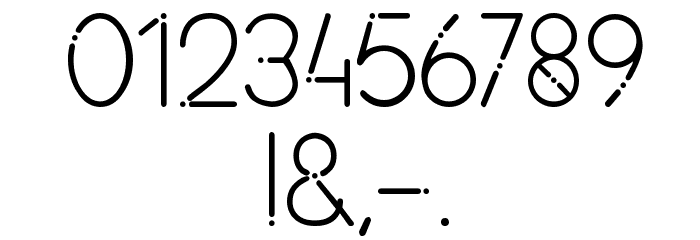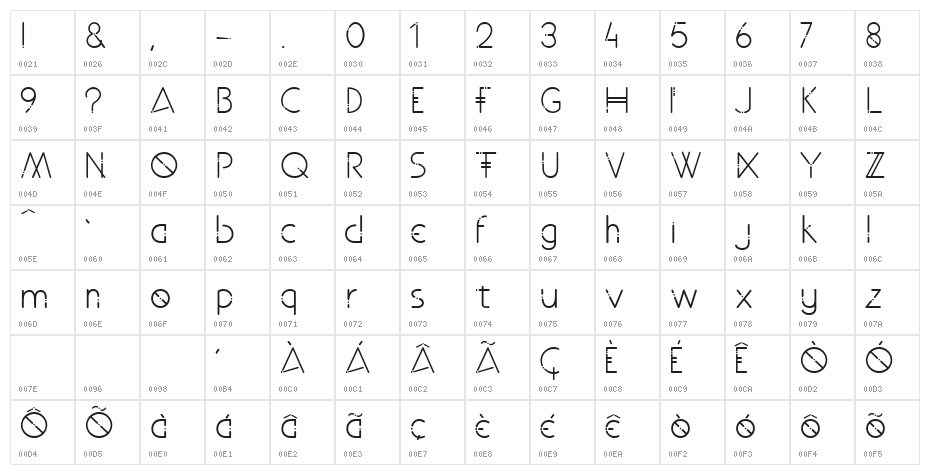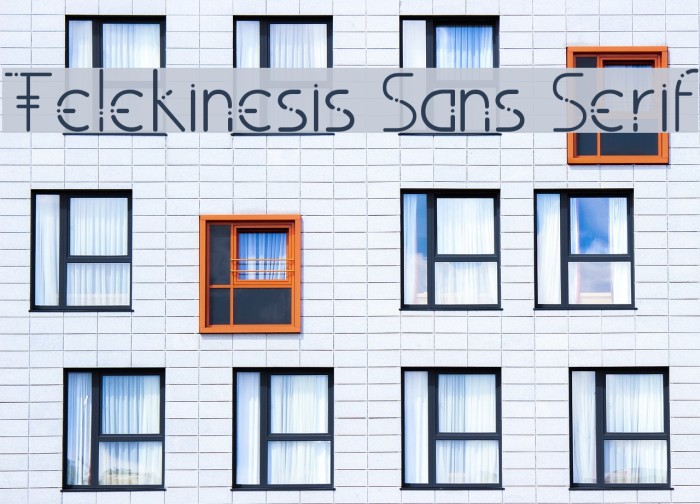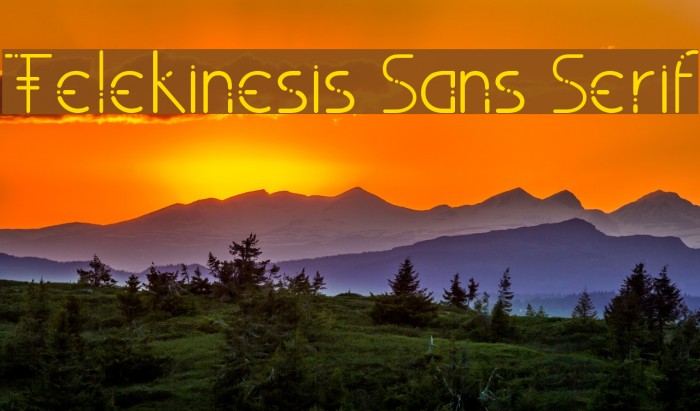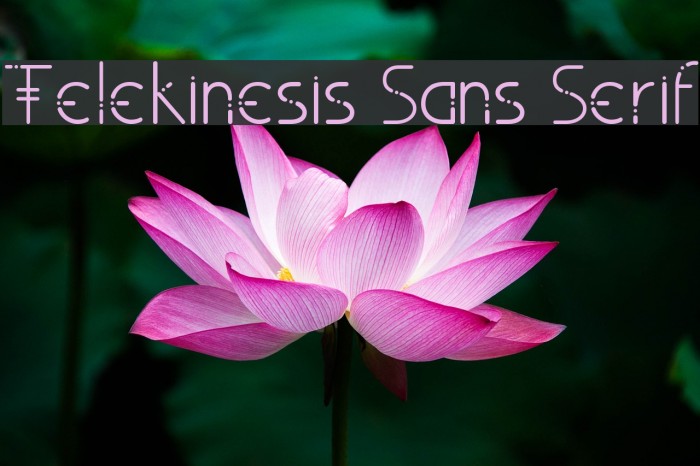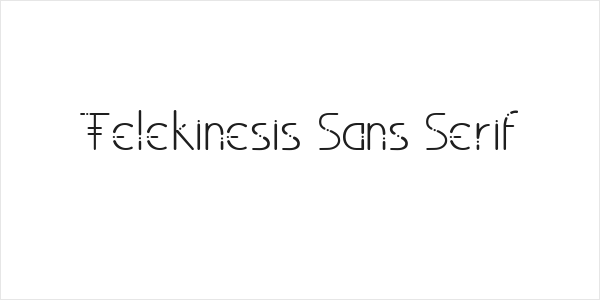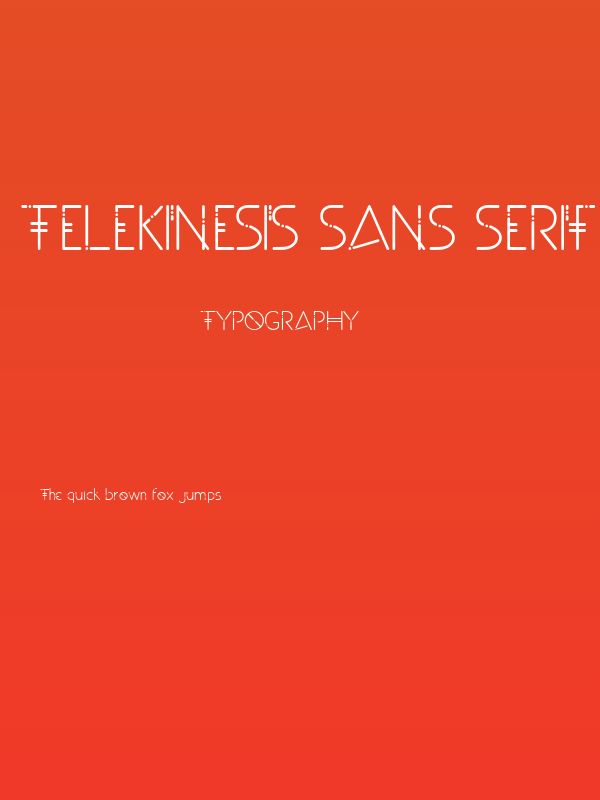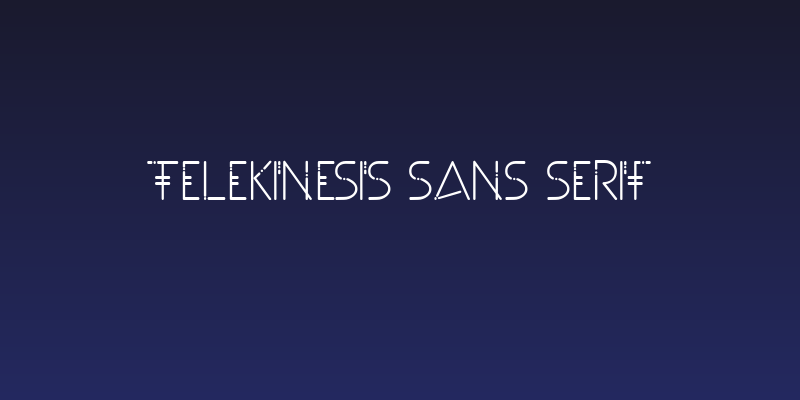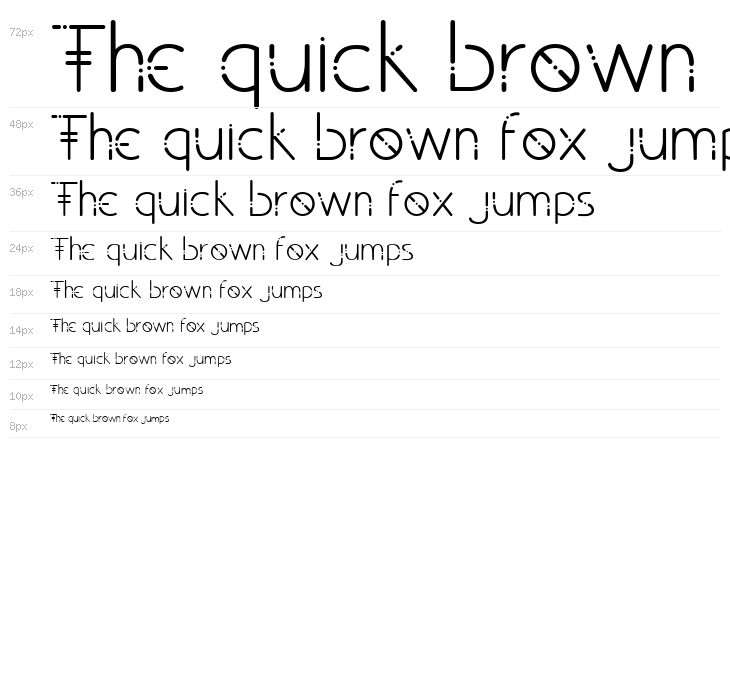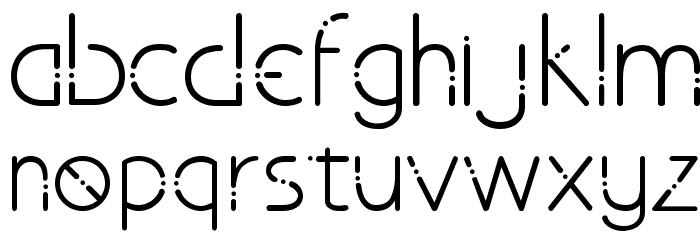
Telekinesis Sans Serif Font
Telekinesis Sans Serif Description
This font features a unique and modern design with a futuristic touch. Each character is composed of clean, geometric lines with distinct circular cutouts, giving it a digital and tech-inspired appearance. The uppercase and lowercase letters maintain a consistent style, with rounded edges and a balanced structure. The numerals and special characters follow the same design principles, ensuring a cohesive look throughout. This font's innovative style makes it stand out, perfect for projects that require a contemporary and cutting-edge aesthetic.
| Use Case | Logos, Headlines, Digital Media |
| Proposed Projects | Ideal for technology branding, digital media, futuristic designs, and innovative product packaging. |